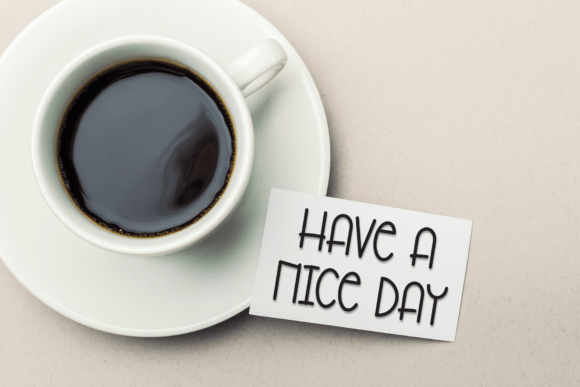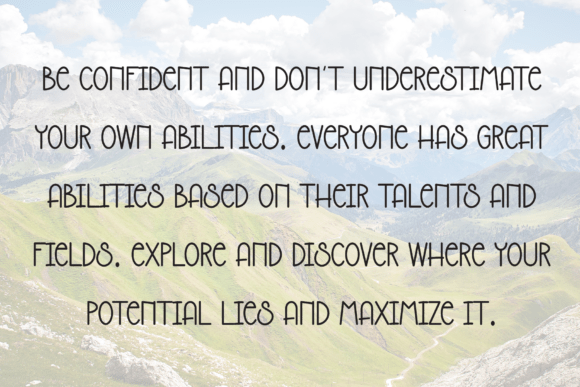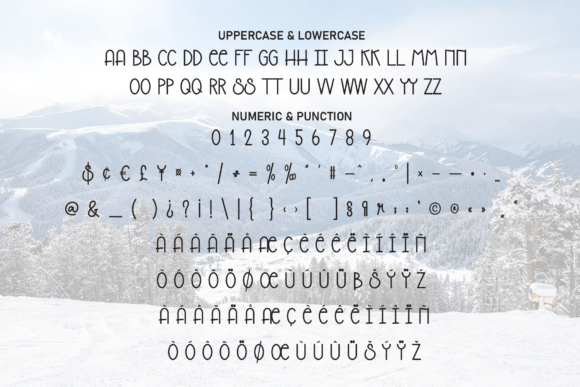
Introduction to Monday Winter Font Font
Fonts play a crucial role in design, and the Monday Winter Font font is a typeface that brings both character and versatility to any project. Whether you’re working on a branding project, a website, or a print design, the Monday Winter Font font offers a unique style that can elevate your work.
Introducing a charming handwritten display font, exuding sweetness and friendliness.
Characterized by its cute and whimsical style, this font breathes life into your design projects, be it crafting enchanting wedding invitations or vibrant greeting cards Add a splash of fun to your designs, with a font that effortlessly incorporates a playful touch.
The Monday Winter Font font is more than just a typeface – it’s a design tool that helps you communicate your message with style and clarity. Its unique character set and versatile design make it suitable for a wide range of applications, from elegant invitations to bold headlines.
With its carefully crafted letterforms and balanced proportions, the Monday Winter Font font ensures readability and visual appeal across all mediums.
What makes Monday Winter Font font special?
The Monday Winter Font font stands out with its unique design, exceptional readability, and versatility across various design applications.